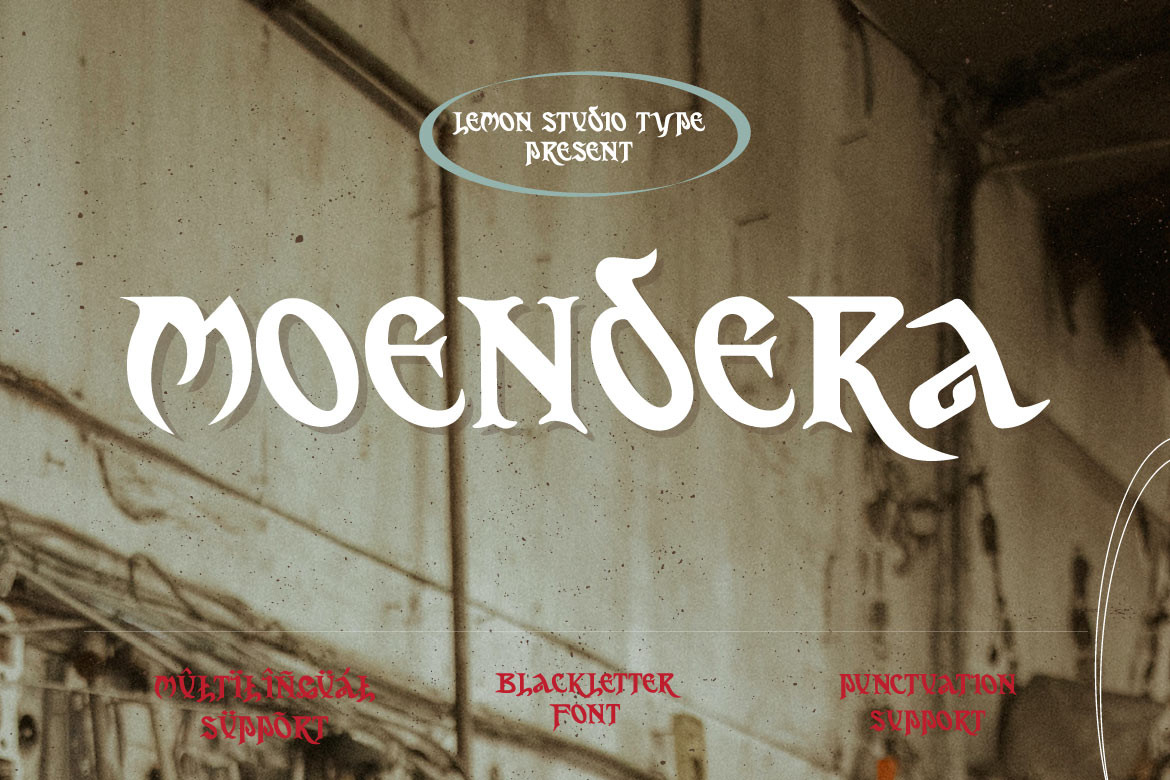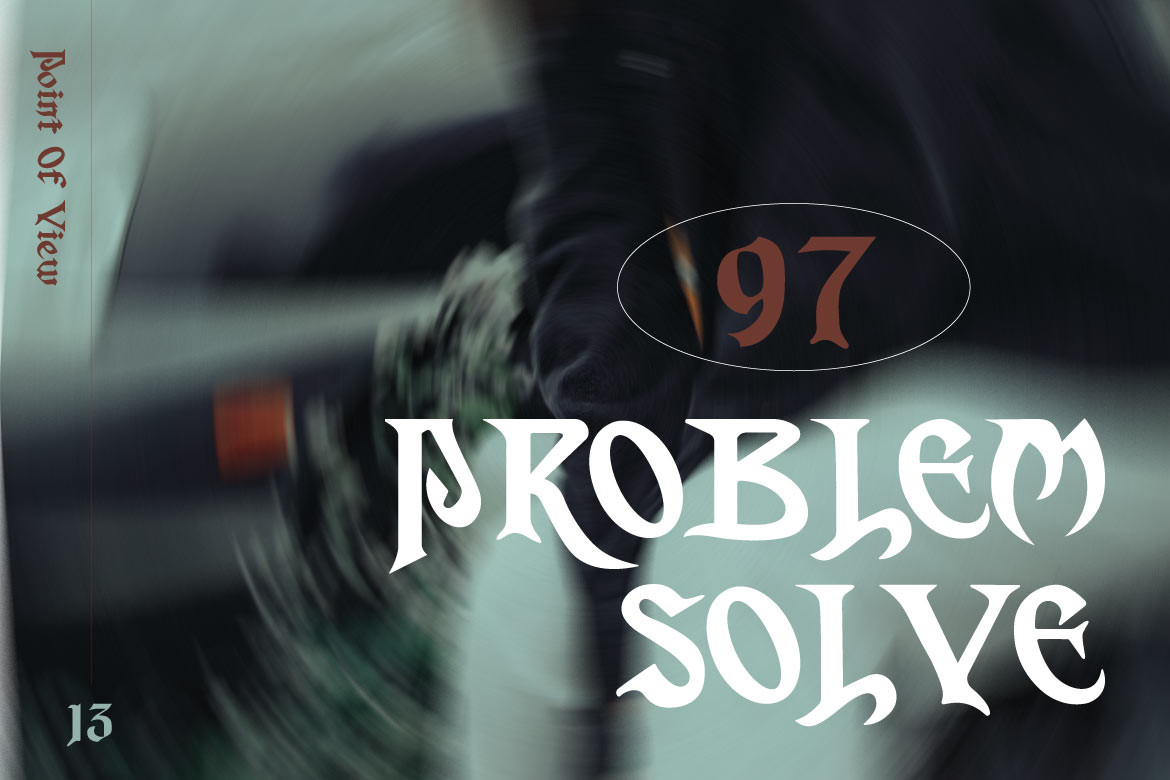
About Moendera Font
Moendera is a gothic and blackletter font perfect for any designing project you can think of. From logos to T-shirts, add it to your favorite creative ideas, and notice how it makes them stand out!